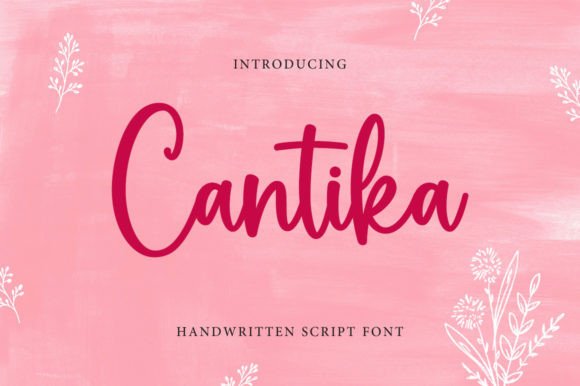
Cantika Font: A Timeless Handwritten Font for Creative Designs
Cantika is a beautiful and elegant handwritten font that has captured the hearts of designers and crafters alike. Its timeless charm and versatility make it an excellent choice for creating eye-catching logos, branding, and quotes. In this article, we’ll dive into the world of Cantika Font, exploring its features, benefits, and uses.
The Beauty of Cantika Font
Cantika Font is a lovely and timeless handwritten font that exudes warmth and sophistication. Its flowing lines and delicate curves create a sense of elegance, making it perfect for designs that require a touch of refinement. The font’s unique character set includes uppercase and lowercase letters, numbers, and punctuation marks, ensuring that you have everything you need to create stunning designs.
Features of Cantika Font
- Handwritten style: Cantika Font boasts a beautiful handwritten style that adds a personal touch to any design.
- Timeless charm: The font’s classic look ensures that your designs will remain stylish and relevant for years to come.
- Versatility: Cantika Font is suitable for a wide range of design projects, from logos and branding to quotes and social media graphics.
- Easy to read: The font’s clear and legible design makes it easy to read, even at small sizes.
Benefits of Using Cantika Font
Cantika Font offers numerous benefits for designers and crafters, including:
- Unique designs: With Cantika Font, you can create one-of-a-kind designs that stand out from the crowd.
- Time-saving: The font’s versatility and ease of use save you time and effort, allowing you to focus on other creative aspects of your project.
- Professional look: Cantika Font’s elegant design gives your projects a professional and polished look, perfect for clients or personal branding.
Uses of Cantika Font
Cantika Font is an excellent choice for various design projects, including:
- Logos and branding: Create memorable and stylish logos that represent your brand’s personality.
- Quotes and typography: Add a touch of elegance to your quotes and typography designs.
- Social media graphics: Use Cantika Font to create engaging and eye-catching social media graphics.
- Stationery and cards: Add a personal touch to your stationery and cards with Cantika Font’s beautiful handwritten style.
Tips for Using Cantika Font
To get the most out of Cantika Font, follow these tips:
- Experiment with colors: Cantika Font looks stunning in various colors, so don’t be afraid to try different combinations.
- Mix and match: Combine Cantika Font with other fonts to create unique and interesting designs.
- Pay attention to spacing: Adjust the spacing between letters and words to create a balanced and harmonious design.
Cantika Font is a timeless handwritten font that offers a world of creative possibilities for designers and crafters. Its elegance, versatility, and ease of use make it an excellent choice for creating eye-catching logos, branding, and quotes. With Cantika Font, you can add a touch of sophistication and refinement to your designs, ensuring that they stand out from the crowd.